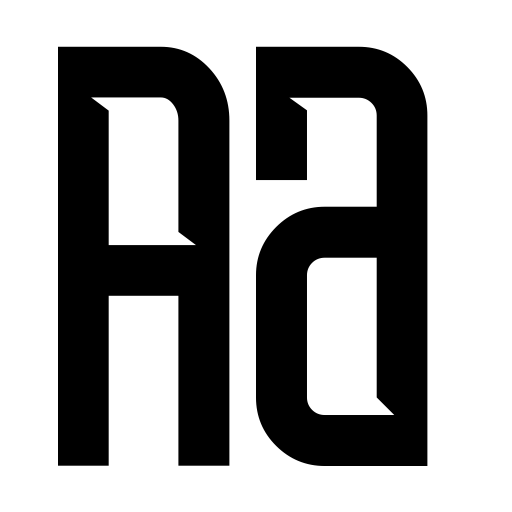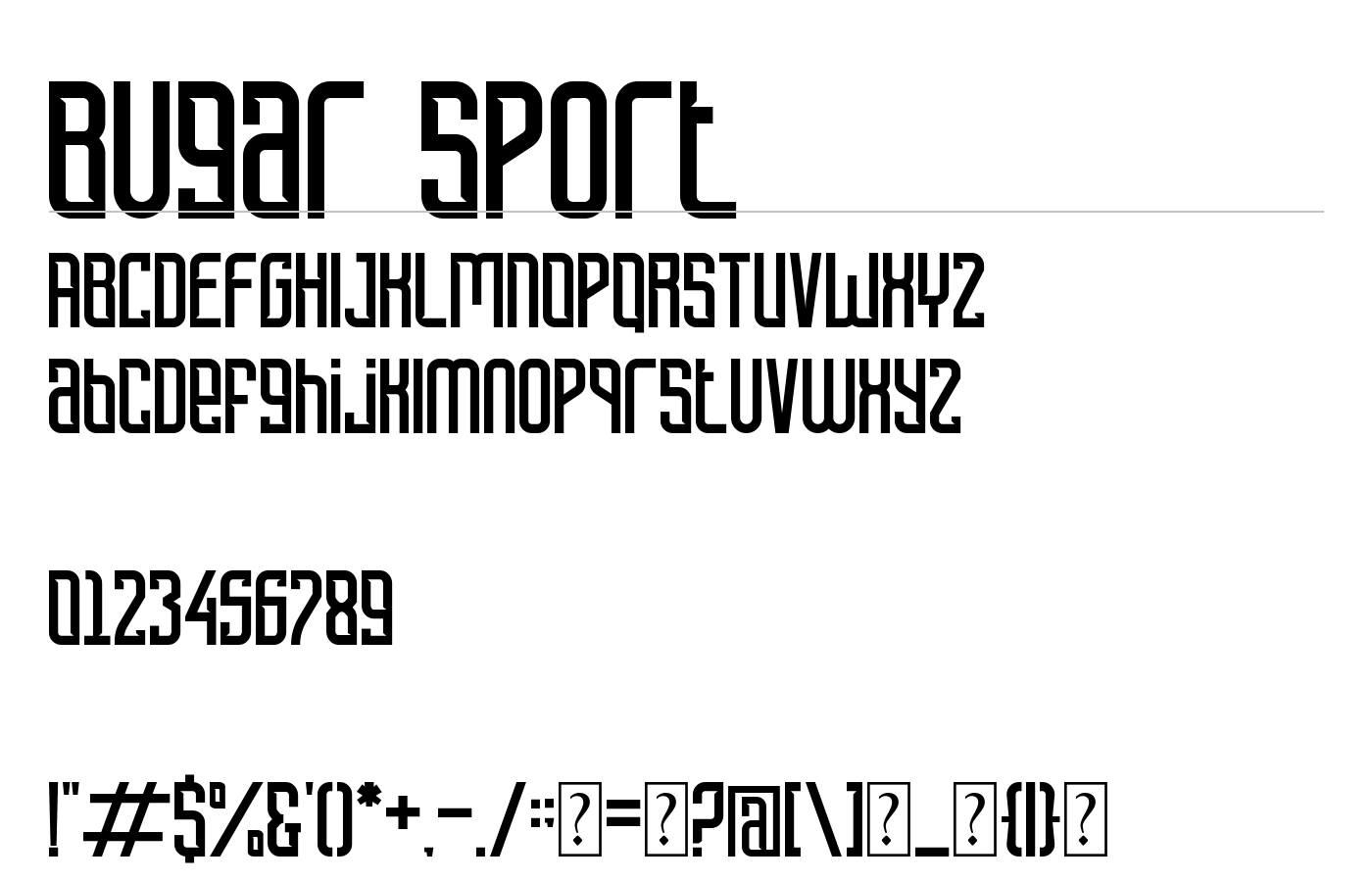
Bugar Sport is a bold, condensed sans serif font with a futuristic and dynamic character, perfect for sports and active lifestyle branding. Its tall, tightly spaced letterforms feature sharp, geometric strokes with minimal contrast, creating an energetic and modern look suited for headlines, logos, and posters where impact and readability matter. This font conveys a strong, sporty vibe that works well for brands seeking a sleek, confident, and contemporary style.
| Font family | Bugar Sport Font |
| Designer | Virgiawan Listanto. 2023 |